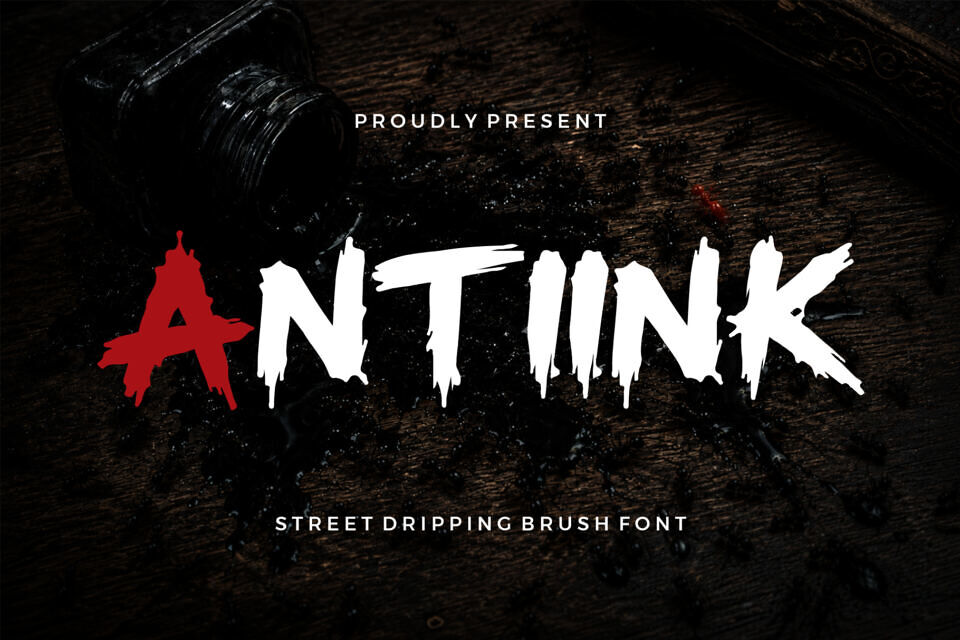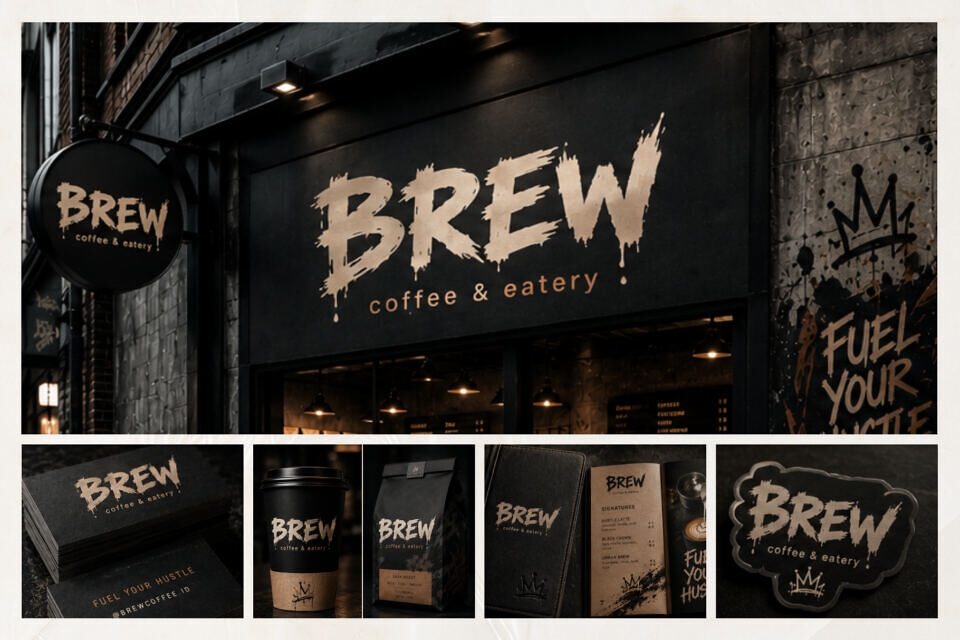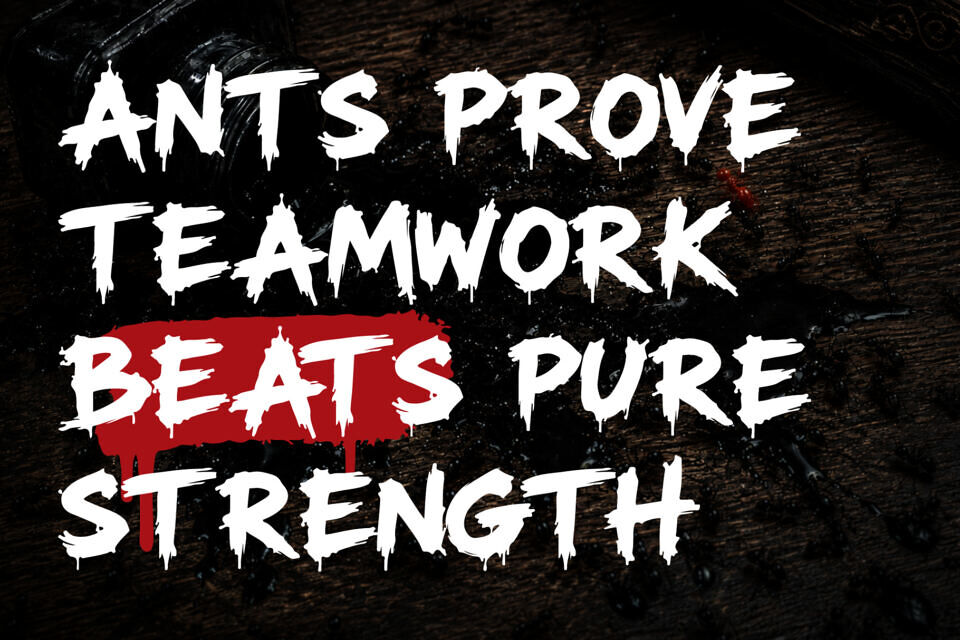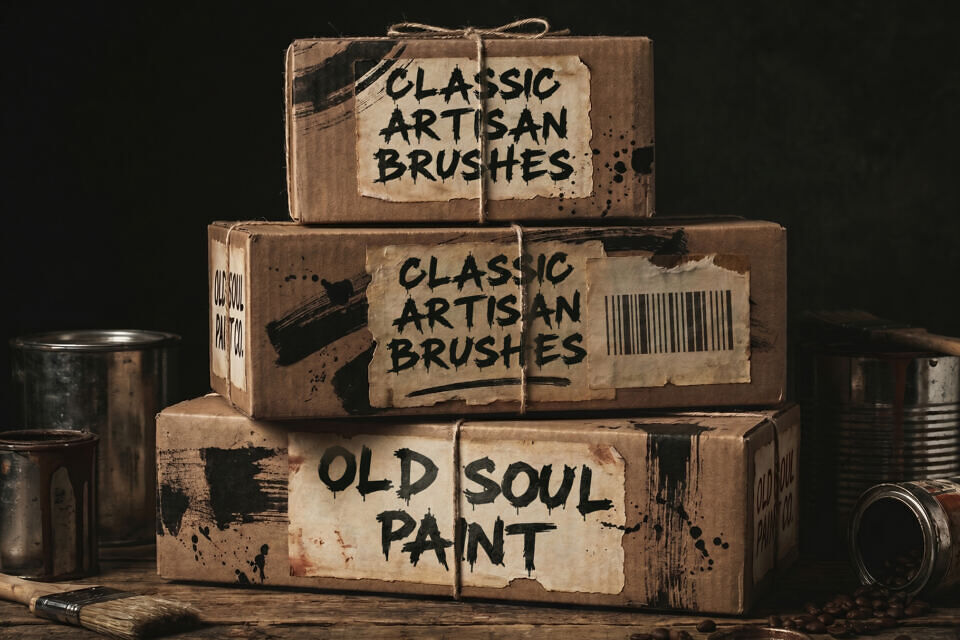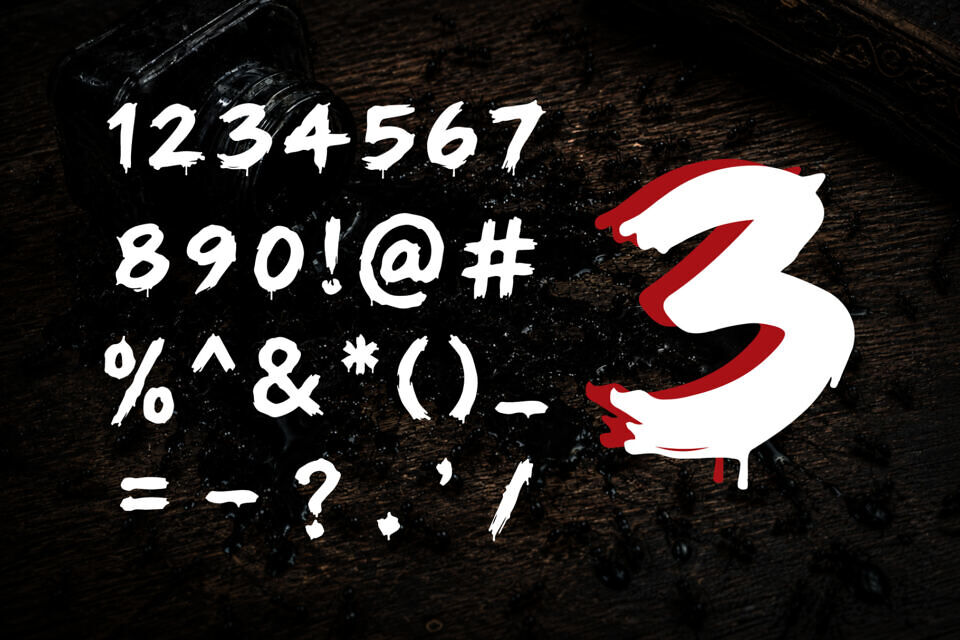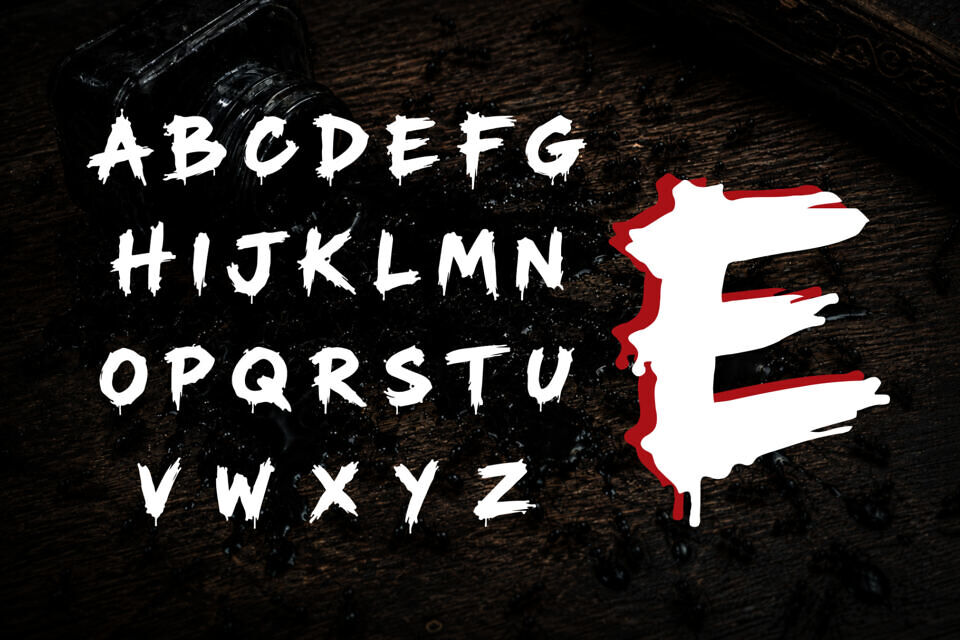
Antiink Font
Introducing Antiink, a graffiti-inspired brush font delivering an authentic slice of raw urban culture. Saturated with unfiltered street energy, Antiink mirrors the raw aesthetics characteristic of rebellious street art and underground graffiti.
Each brush stroke is aggressive, ink details drip with originality, and textures feel handcrafted, mirroring an aesthetic that is both visually assertive and unapologetically bold. Perfectly balanced between bold readability and expressively creative brush graphics, Antiink is ideal for large-scale headlines, striking branding systems, promo graphics, and eye-catching visual content.
Designed by: Straightwell (Cikareotype Studio)